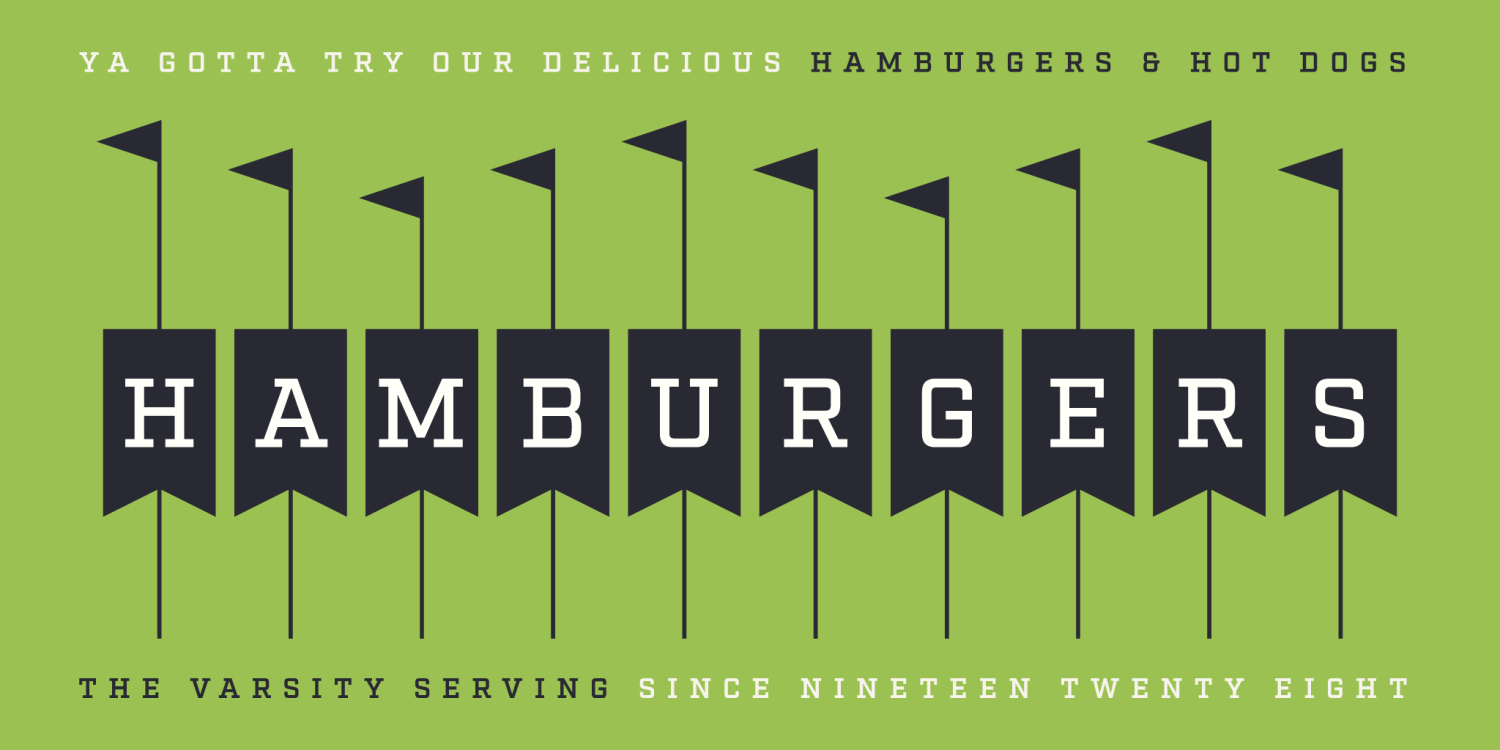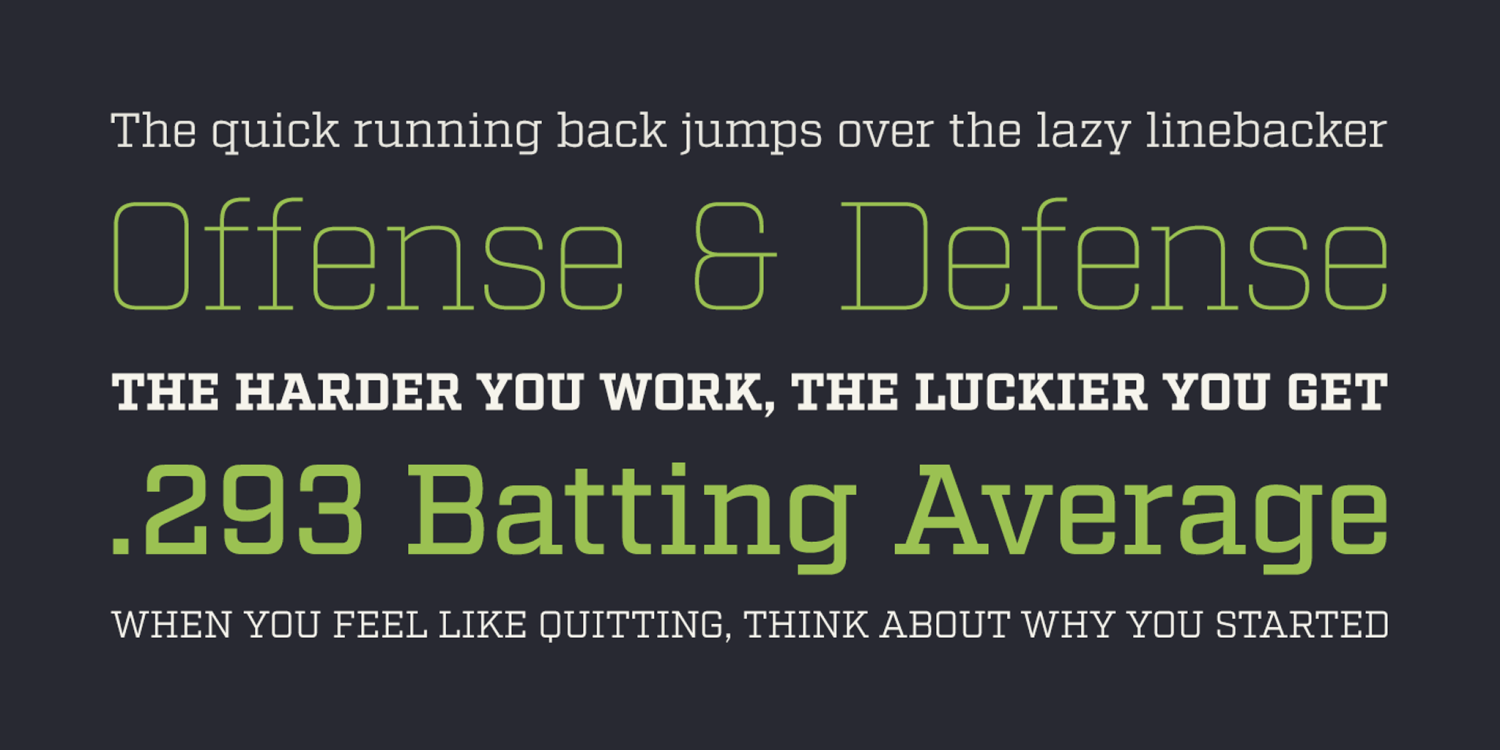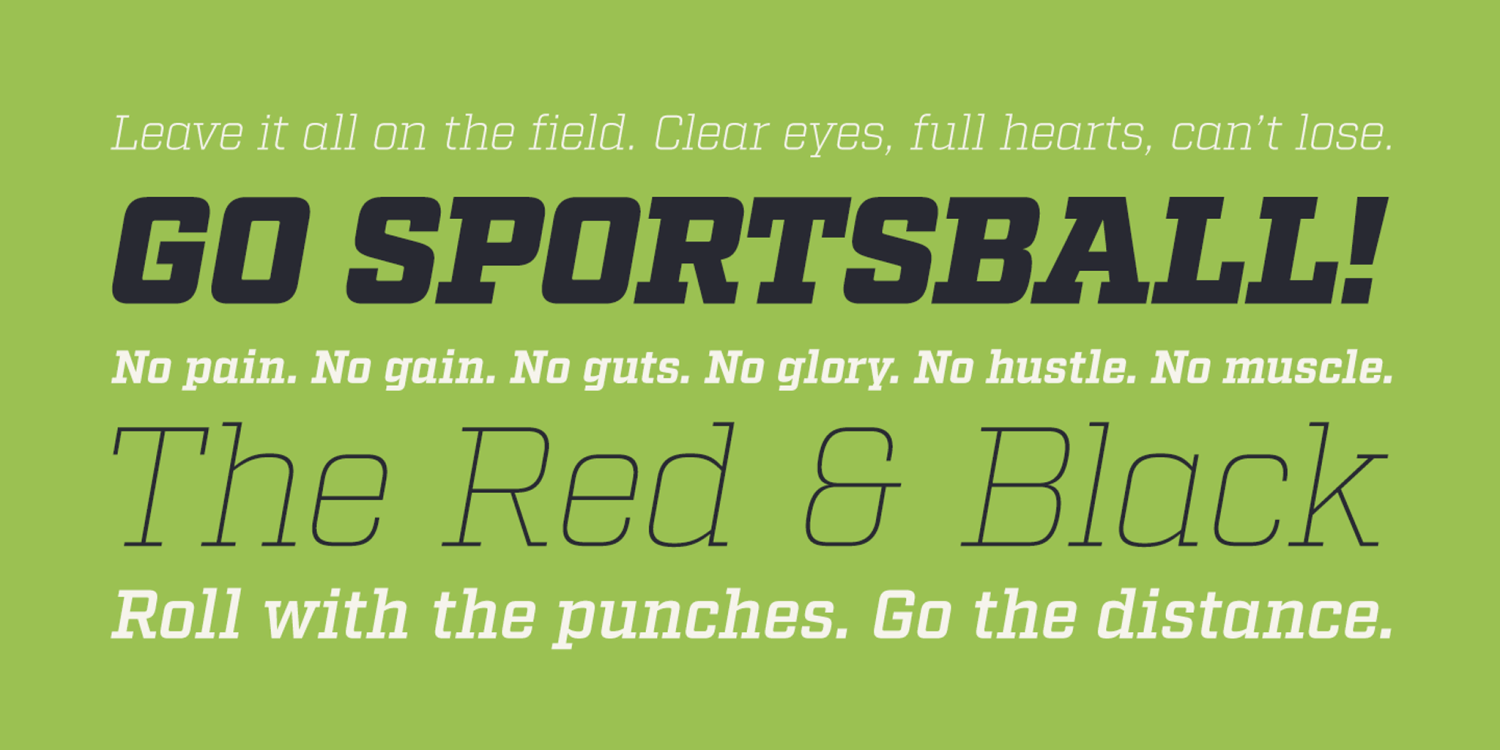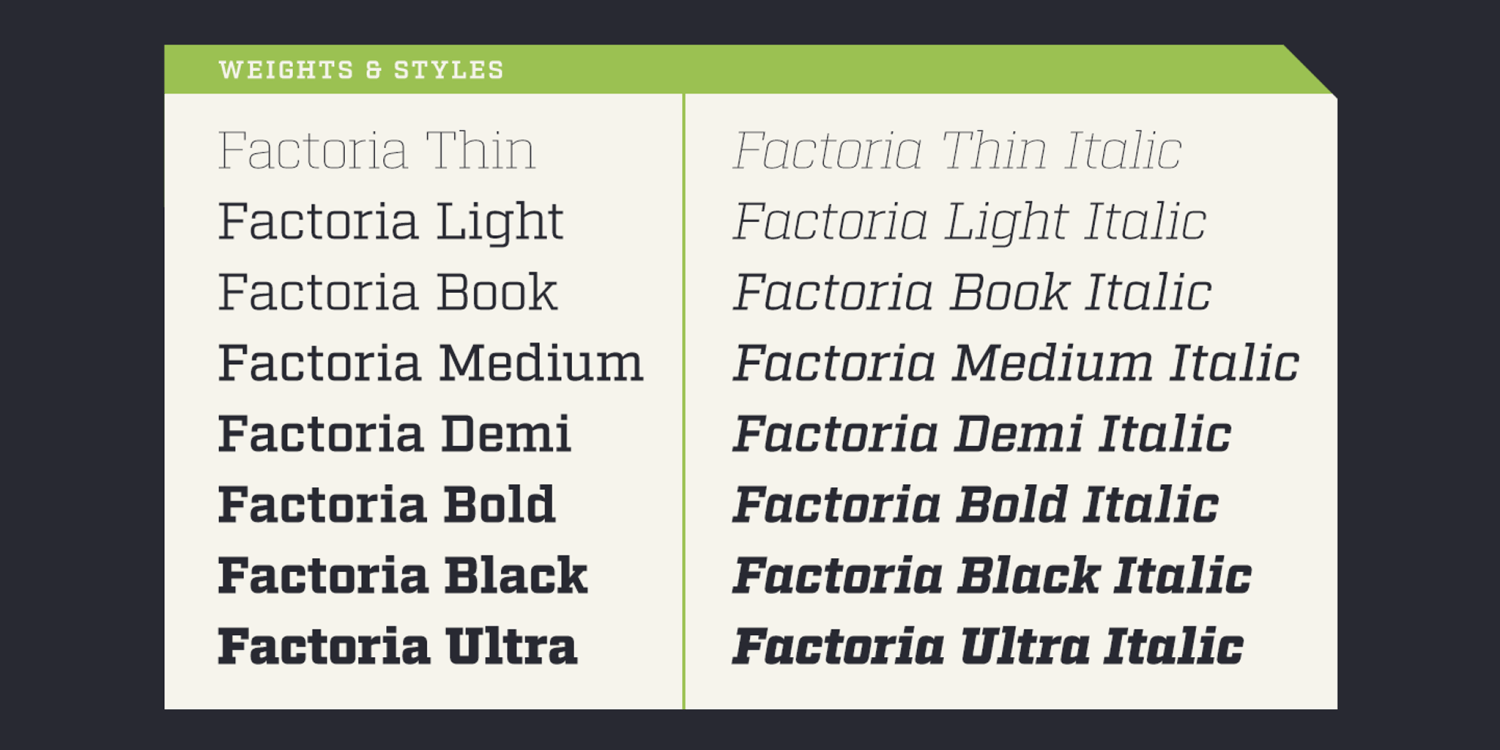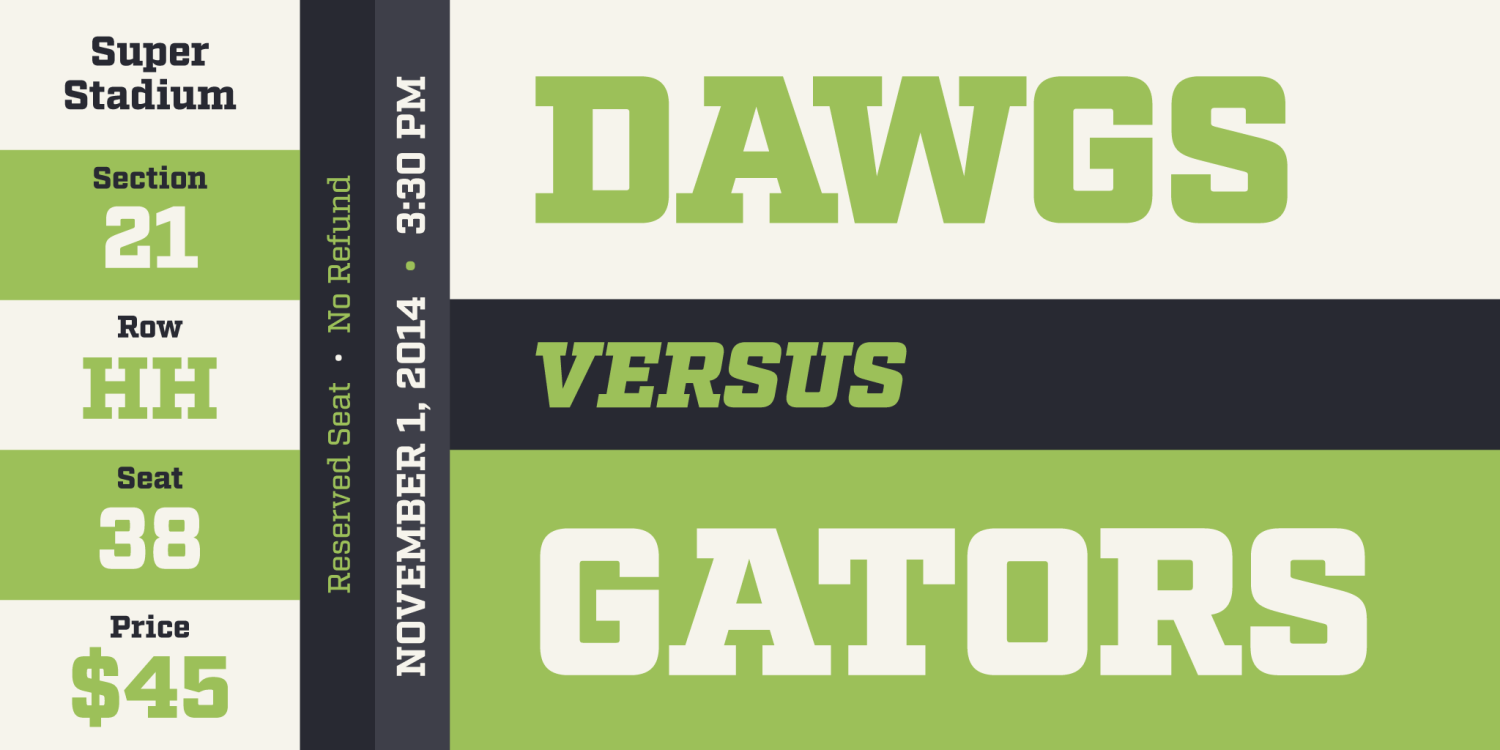
About Factoria
Born out of Industry, Factoria is a geometric, square slab. The hard-working family can jump from the side of an industrial building and into a sports magazine in a jiffy. The lighter weights exhibit a clean, no-nonsense vibe while the thicker weights…